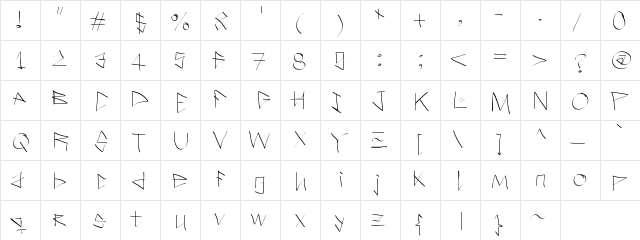
ILostItInTheStreet Medium Font Preview
ILostItInTheStreet Medium
Design Context for ILostItInTheStreet Typeface
ILostItInTheStreet is a composed and adaptable typeface that performs quietly and consistently across a wide range of design contexts.
Pro Tip: Use ILostItInTheStreet in both headline and body roles to test its range before committing to a single application.